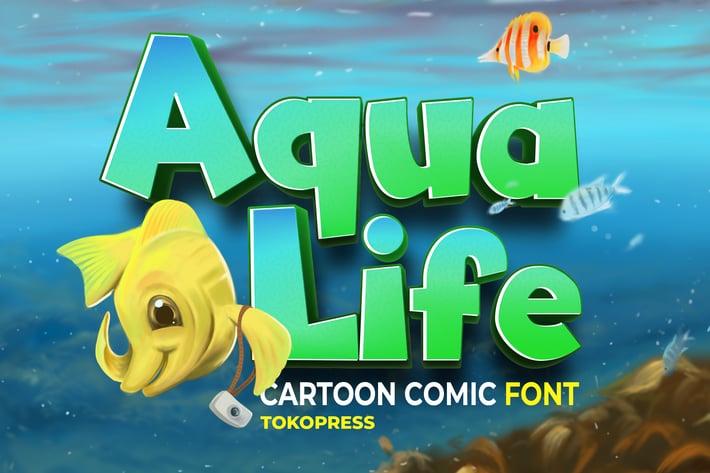
Aqua Life - Cartoon font
Aqua Life - Cartoon Font
Aqua Life is a cartoon display font with bold, rounded curves and a bubbly underwater vibe—designed to bring childlike joy and fun into any design project. Its low contrast and thick proportions give it a soft, approachable tone, while the oceanic influence makes it perfect for beach-themed campaigns, kids products, and educational content. Aqua Life blends expressive personality with clear legibility, making it ideal for playful brands and vibrant messages.
Whether you're promoting ocean awareness, creating a kids book, launching a summer tour campaign, or designing a birthday invitation, Aqua Life gives your work a fresh, buoyant voice. It's made for storytelling with warmth—inviting young readers, families, and eco-conscious audiences into colorful worlds of fun and learning. This font shines in both print and screen contexts, from packaging to mobile apps.
✔ Expressive Ocean-Themed Style
- Water-inspired lettering with playful bounce
- Rounded edges and clean finish for child-friendly appeal
✔ Built for Kids and Creatives
- Ideal for books, birthday invites, classroom decor, and summer promotions
- Works well for eco-campaigns, zoo branding, and animated YouTube content
✔ Readable & Friendly
- Thick, rounded structure ensures high legibility
- Brings warmth and character to every word